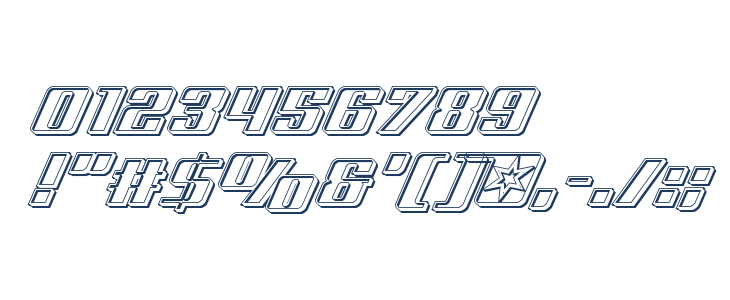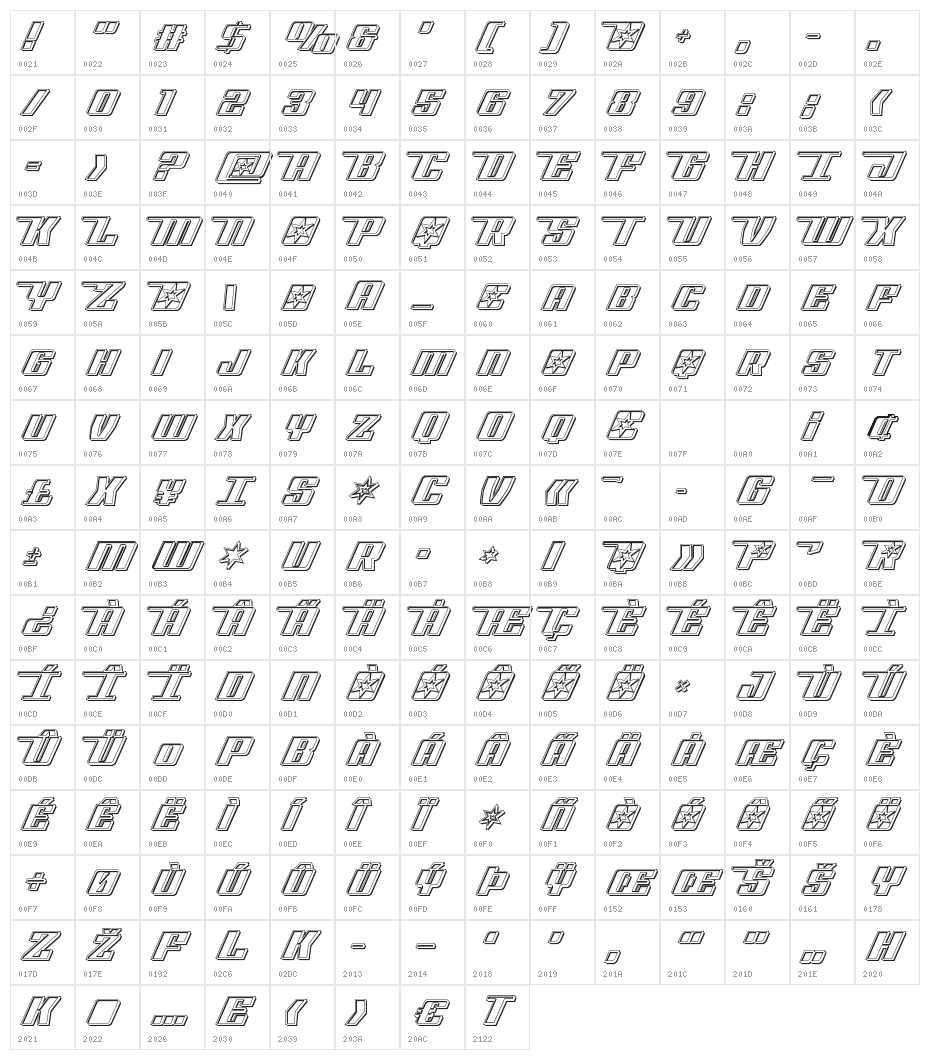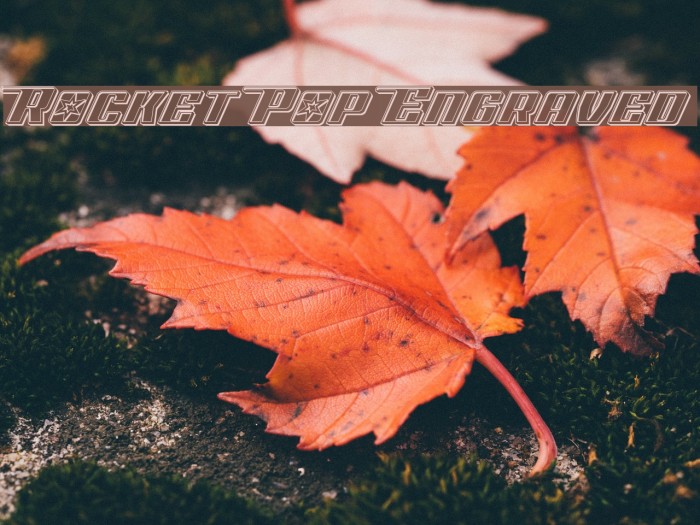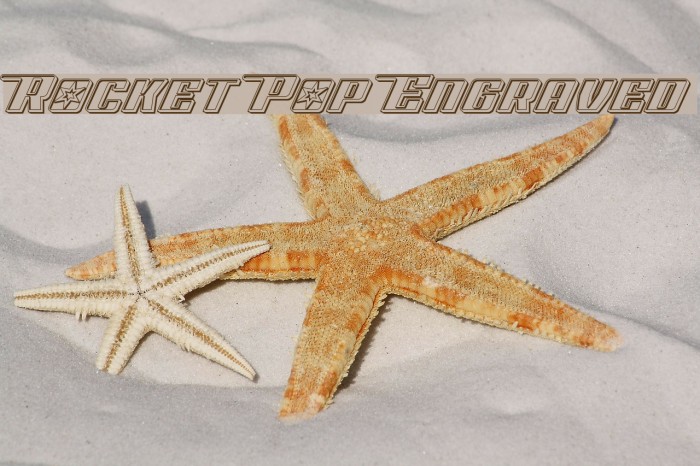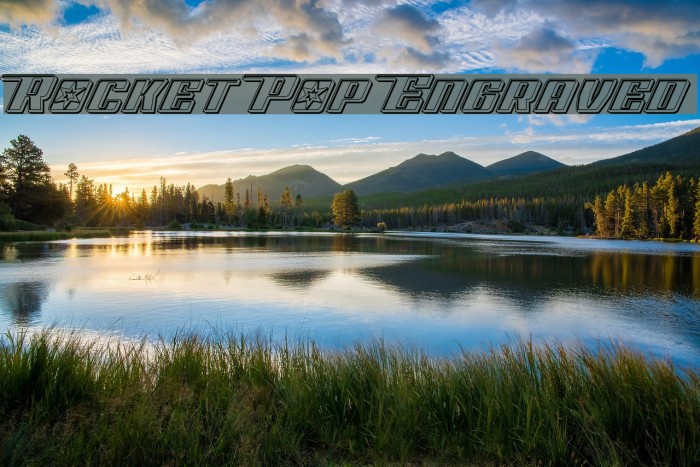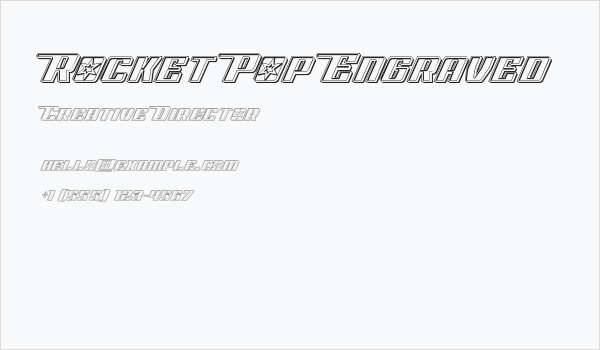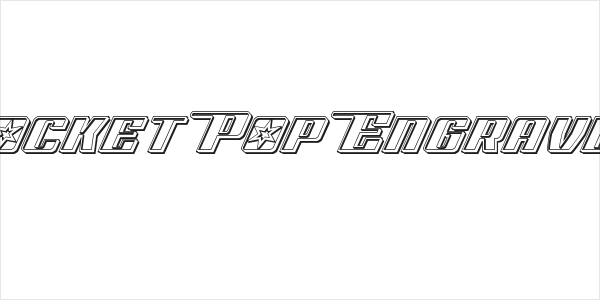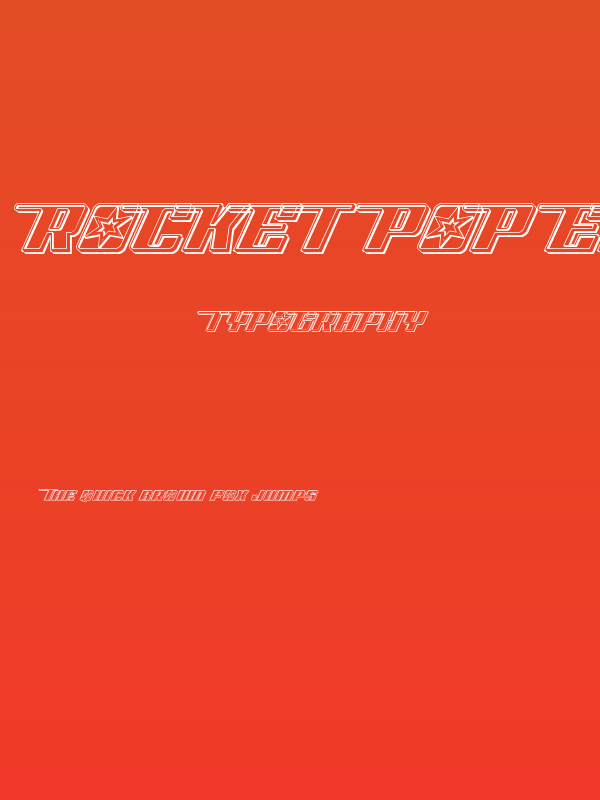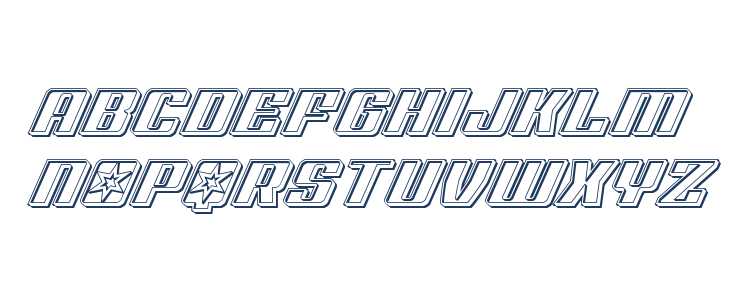
Rocket Pop Engraved Font
Rocket Pop Engraved Description
This font features a bold, decorative style with a futuristic and dynamic appearance. The characters are outlined with a double line, creating a sense of depth and movement. Each letter is designed with sharp angles and a slight slant, giving it a forward-leaning posture. The unique star motif embedded within certain letters adds a playful and engaging element, making it stand out. The font maintains a consistent weight throughout, with medium contrast in stroke thickness. Its distinctive style is both eye-catching and versatile, suitable for a variety of creative applications.
| Overall Style | Futuristic, Decorative |
| Proposed Projects | Ideal for sci-fi themed posters, video game titles, branding for tech companies, and any project requiring a bold, standout typeface. |